Ever wondered why certain fonts just feel right for certain situations? Or why you trust some brands more than others based on their logo alone? Well, fonts, those seemingly simple text styles, carry more weight than we often give them credit for. The choice of a font can do more than just make words look pretty; it can set the mood, grab attention, or even cause someone to click a "Buy Now" button. Let's dive in and break down the secret power fonts have over us.
What is Font Psychology?
Font psychology delves into our subtle, often subconscious, reactions to different typefaces. Just as colors and images can evoke specific emotions, the style of letters and numbers can influence our perceptions, feelings, and actions. It's the art and science of how text presentation can alter our interpretation of the content.
Within seconds of encountering a font, our brain has already made several judgments. Whether it's deducing that a brand is fun-loving due to its whimsical typeface or trusting a news source because of its straightforward, no-nonsense font, our initial interactions set the tone.
Why do Brands Use Font Psychology?
In a competitive market, the right font can distinguish a brand from its competitors. A unique, custom font can become as recognizable as a logo, making the brand instantly identifiable.
Fonts influence the way customers feel about products or services. For example, a children's toy website might use playful and colorful fonts to appeal to its young audience, while a premium watch retailer might choose a sophisticated, clean font to reflect the precision and luxury of its timepieces.
Successful brands meticulously choose fonts that align with their values and mission. Nike, with its bold and dynamic font, echoes its commitment to performance and action. Whereas a brand like Tiffany & Co. uses a refined and elegant script that mirrors its luxurious products.
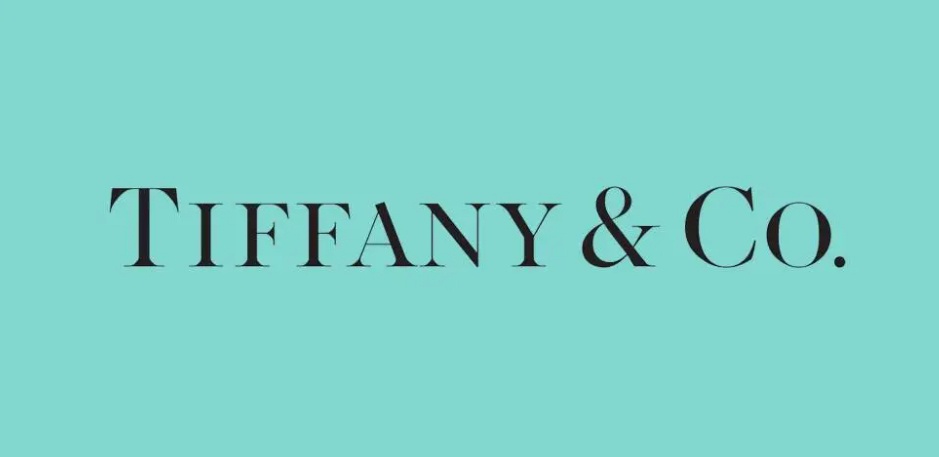
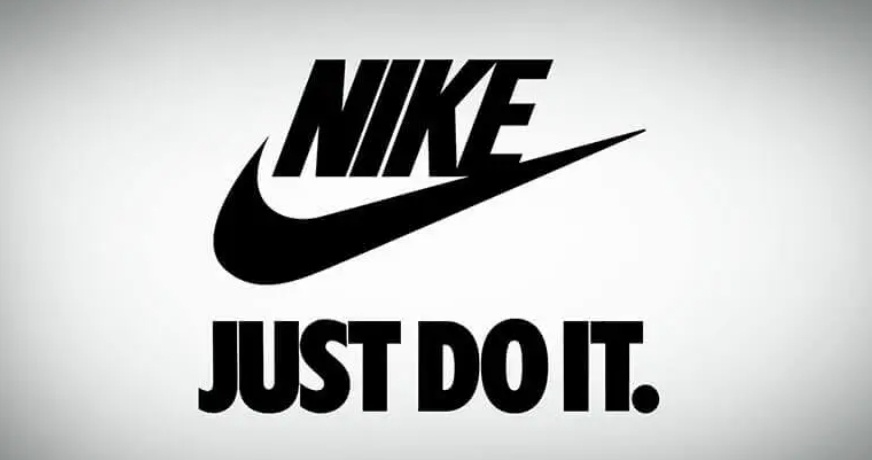
According to a study, almost 93% of our personal interactions are based on non-verbal cues. This implies that the most effective way to convey our thoughts and beliefs is to keep things as straightforward as possible.
Examples of Common Fonts and Their Psychological Impact
- Times New Roman: Often used in academic papers and newspapers, this font exudes trustworthiness, reliability, and tradition. It's no wonder that it's a go-to for formal communications. Its classic look tells readers that the information is established and reliable.
- Comic Sans: A polarizing font, Comic Sans is playful, informal, and friendly. It's best suited for children's books or casual events but is often criticized when used in serious or professional contexts.
- Helvetica: Known for its neutral and clean lines, Helvetica is versatile. Brands use it to come across as modern, objective, and professional. Tech companies, in particular, favor Helvetica because it feels modern and straightforward.
- Baskerville: A study by Errol Morris found that readers were more likely to believe a statement written in Baskerville than in other fonts. It's seen as trustworthy and authoritative but with a touch of elegance.
- Lobster: A decorative typeface, Lobster gives off a feeling of creativity and individuality. It's ideal for brands that want to come across as fun, quirky, or artistic.
- Garamond: Quiet elegance is the phrase for Garamond. It's been around for centuries and evokes respect and credibility, making it a favorite for brands that wish to be seen as cultured and established.
How to Choose the Right Font for Your Brand?
Understanding font psychology is just the beginning. Leveraging its principles effectively requires careful thought and consideration. Here's a guide to making font choices that resonate:
- Understand Your Audience: Before selecting a font, consider your target audience's preferences and expectations. A younger demographic might resonate with modern, fresh fonts, while older audiences might appreciate classic typefaces.
- Match the Font to the Mood: Are you creating content that's fun and light-hearted? Or is it a serious, in-depth analysis? The mood of your content should dictate the font choice.
- Test and Get Feedback: A/B test different fonts to see which ones engage your audience best. Alternatively, seek feedback from a sample of your audience or colleagues to get a broader perspective.
- Avoid Overusing Fonts: While using various fonts for visual interest is tempting, it's best to stick to 2-3 fonts to maintain coherence and readability.
- Consider Readability: Some fonts might look aesthetically pleasing but can be hard to read, especially in longer texts. Always prioritize clarity.
- Stay Updated: Font trends evolve, so it's essential to stay updated and adapt accordingly. However, always ensure that the font aligns with your brand or content's core message.
Common Mistakes in Font Choice: When Typography Goes Wrong
Here are some common missteps businesses make when choosing fonts and the impact on their brand's psychology: